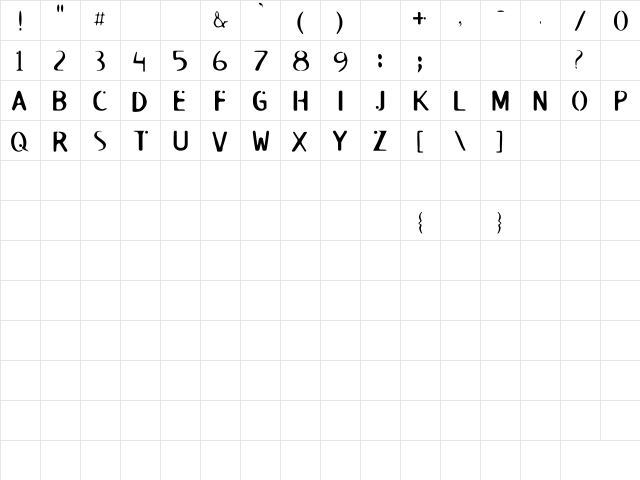
ROSWELL Regular Free Font
ROSWELL Regular
Foundry: High-Logic
Designer: FBI, posts under that name at www.fanforum.com in the ROSWELL board
Design Context for ROSWELL
ROSWELL is a composed and adaptable typeface that performs quietly and consistently across a wide range of design contexts.